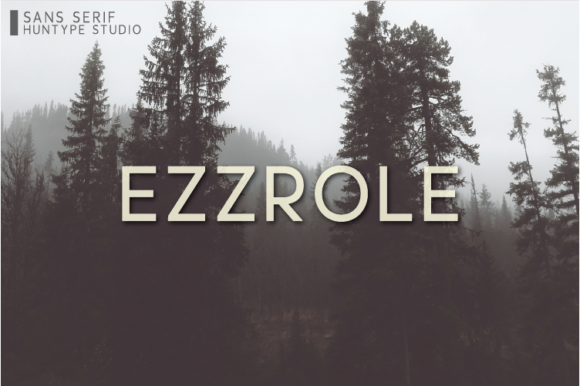
Ezzrole Font
In a realm of visual expressions, typography reigns supreme, captivating hearts and minds with its ability to transform words into art. Amidst a myriad of font families, Ezzrole emerges as an exquisite sans serif masterpiece, meticulously crafted to elevate your creative endeavors to new heights. Its minimalist and neat design exudes an aura of sophistication, seamlessly adapting to a vast spectrum of projects, igniting your imagination and leaving an indelible mark on your audience.
Unleash the power of Ezzrole and witness the metamorphosis of ordinary designs into captivating masterpieces. With its inherent versatility, Ezzrole effortlessly complements a diverse range of projects, from eye-catching logos that demand attention to elegant website designs that exude professionalism. Its crisp lines and balanced proportions create a visual symphony, harmonizing with various design elements to produce cohesive and impactful outcomes.
Immerse yourself in the limitless possibilities that Ezzrole presents. Whether you're a seasoned designer seeking to expand your typographic horizons or a budding entrepreneur yearning to make a lasting impression, Ezzrole stands as your steadfast companion, guiding you toward design excellence. Experience the joy of crafting designs that resonate with your audience, leaving them spellbound by the sheer brilliance of your creations.
Within the realm of T-shirt design, Ezzrole shines as a beacon of creativity, empowering you to transform ordinary garments into wearable works of art. Its inherent charm lends itself effortlessly to the creation of T-shirts that speak to the soul, conveying messages of love, inspiration, and individuality. Imagine the impact of your words when paired with the elegance of Ezzrole, captivating the hearts and minds of those who encounter them.
As you embark on your design journey with Ezzrole, prepare to be swept away by a wave of inspiration. Witness the transformation of your ideas into tangible expressions of beauty, leaving an enduring legacy in the hearts and minds of your audience. Ezzrole is not merely a font; it's an instrument of creativity, a catalyst for innovation, and a key to unlocking the boundless potential within you. Embrace the magic of Ezzrole today and embark on a typographic odyssey that will redefine your creative boundaries.